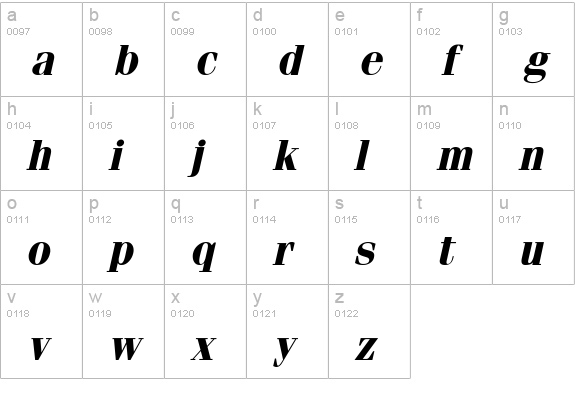
Fenice Bold Italic Font Details
Fenice Bold Italic is a strong, high-contrast, italic variant in the Fenice typeface family \xE2\x80\x94 well suited to headlines, attention-grabbing titles, and strong calls-to-action.
Fenice Bold Italic font is a sleek and modern typeface that exudes sophistication and elegance. Its bold strokes and stylish italics make it perfect for adding a touch of flair to your designs. Whether you're working on a logo, branding, or editorial project, Fenice Bold Italic is sure to make a statement. What's even better is that Fenice Bold Italic font is available for free download at FontsMarket.com. This means you can enhance your projects with this premium font without any cost. Don't miss out on this opportunity to elevate your designs with the striking beauty of Fenice Bold Italic font. Download it today and let your creativity shine.